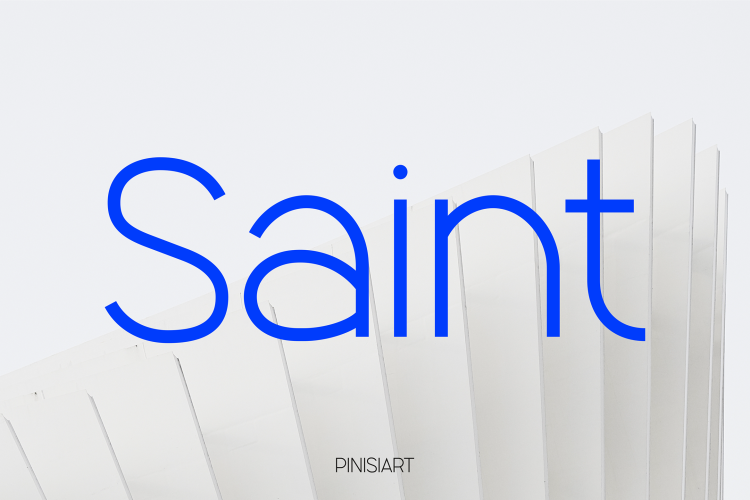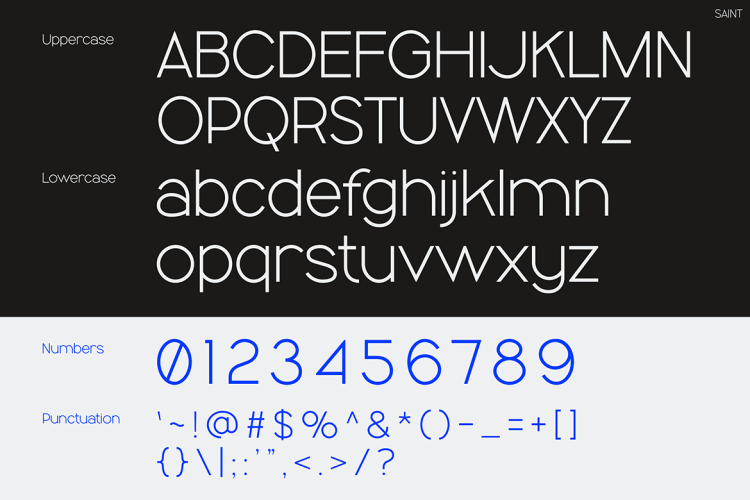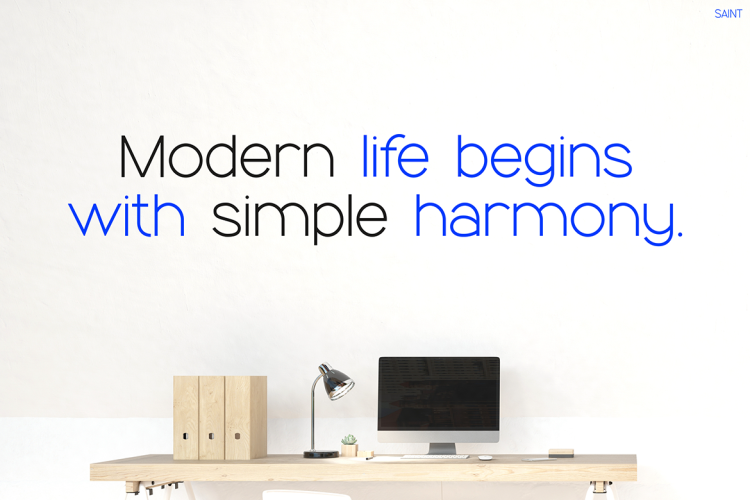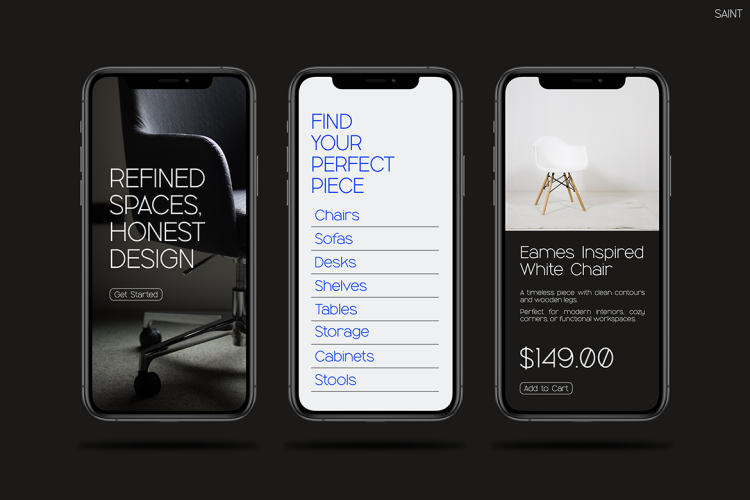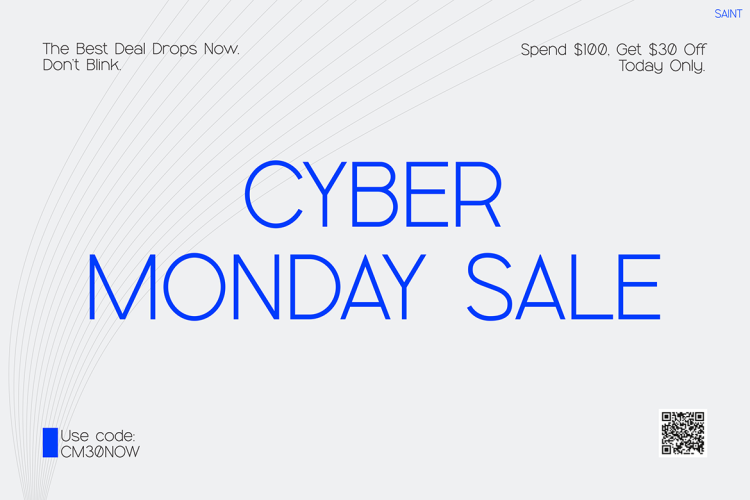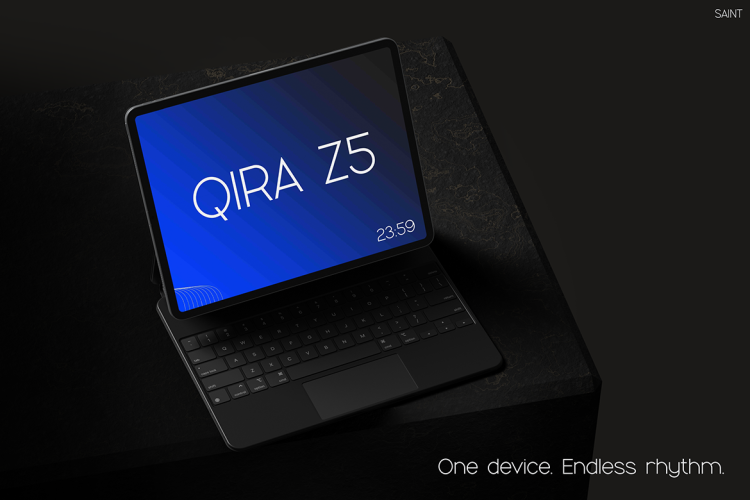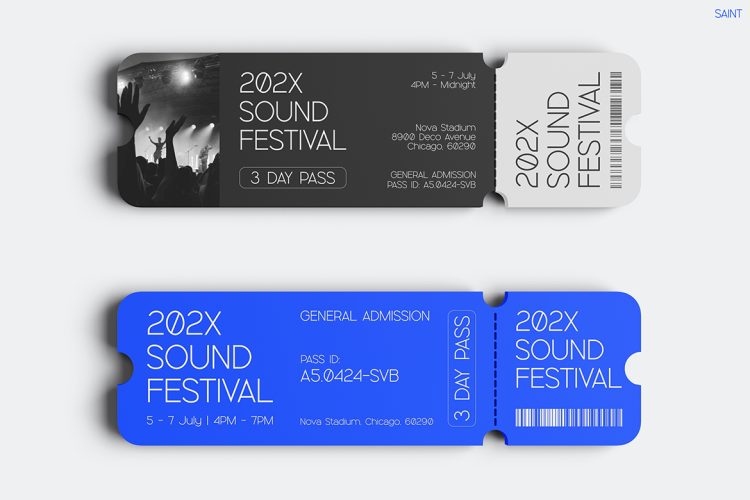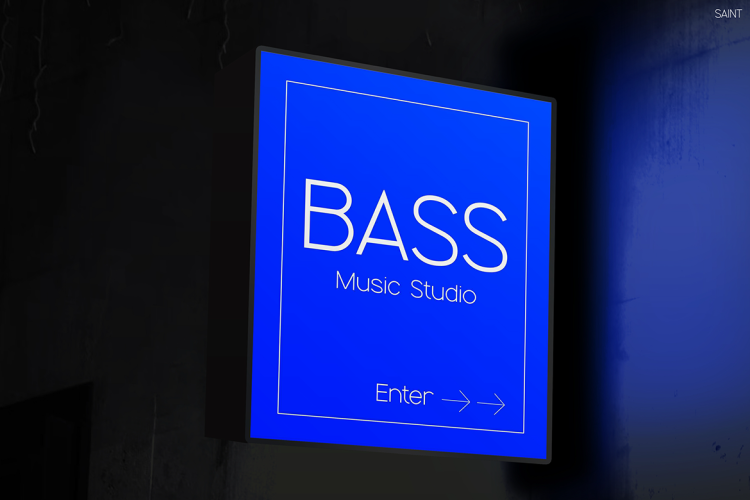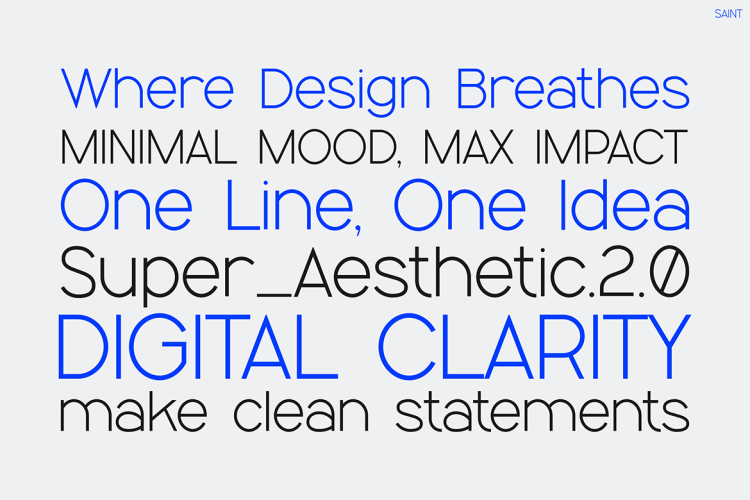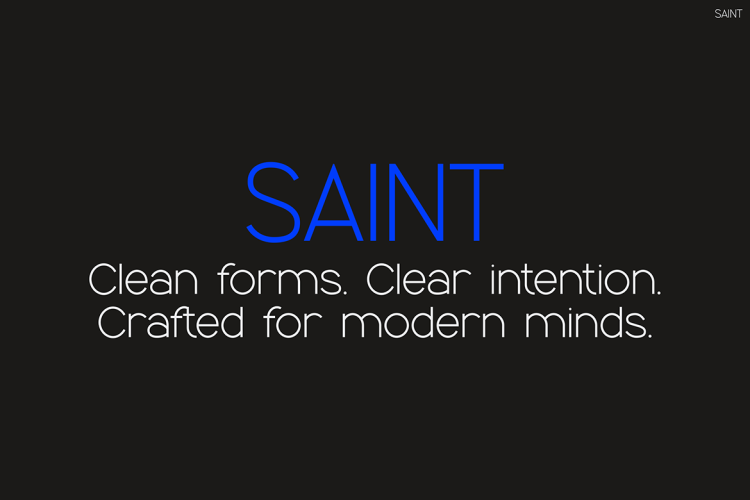
Instagram Font Saint โ Where Modern Simplicity Meets Bold Clarity
Instagram Font Saint brings a sharp, modern vibe to any visual content. With its geometric precision and balanced structure, this typeface helps you create clean, high-impact designs that feel professional and fresh. Every letterform reflects intentionโcurved where it should soothe, angular where it should lead. The result is a harmonious blend of simplicity and confidence that works seamlessly across digital and print media.
Unlike many minimalist fonts that lack personality, Saint injects character into clarity. It stands out through its ultra-consistent stroke weight and excellent readability, making it ideal for both headlines and body text. You can spot its visual rhythm in tech branding, product presentations, music event posters, and digital adsโwhere clarity is key but style still matters. This font doesn’t just deliver information; it commands attention while doing it.
Saint performs beautifully on-screen, in apps, websites, and social media. Its dynamic letterforms ensure legibility in both small and large sizes. Use it for mood-driven branding or minimalist campaigns where every design element needs to earn its place. Whether itโs for a fashion drop or a software launch, Saint gives your project a distinct voice.
Perfect For Creators Who Want to Lead With Style
Instagram Font Saint fits professionals who live at the intersection of creativity and function. Designers, UI/UX specialists, art directors, and modern entrepreneurs will love its polished aesthetic. If you work in digital branding, fashion, tech, or social content creation, Saint will give your message a smart and confident edge.
This font especially suits creators who prioritize harmony and consistency in their layouts. You can use Saint to craft bold digital billboards, polished Instagram carousels, or minimalist packagingโall while maintaining a sense of editorial grace.
Elevate Your Visual Storytelling
If you want your typography to make a statement without shouting, Instagram Font Saint is the perfect choice. It empowers your content to look sharp, trustworthy, and effortlessly stylish. Add it to your design toolkit and start creating work that feels fresh, modern, and unmistakably yours.